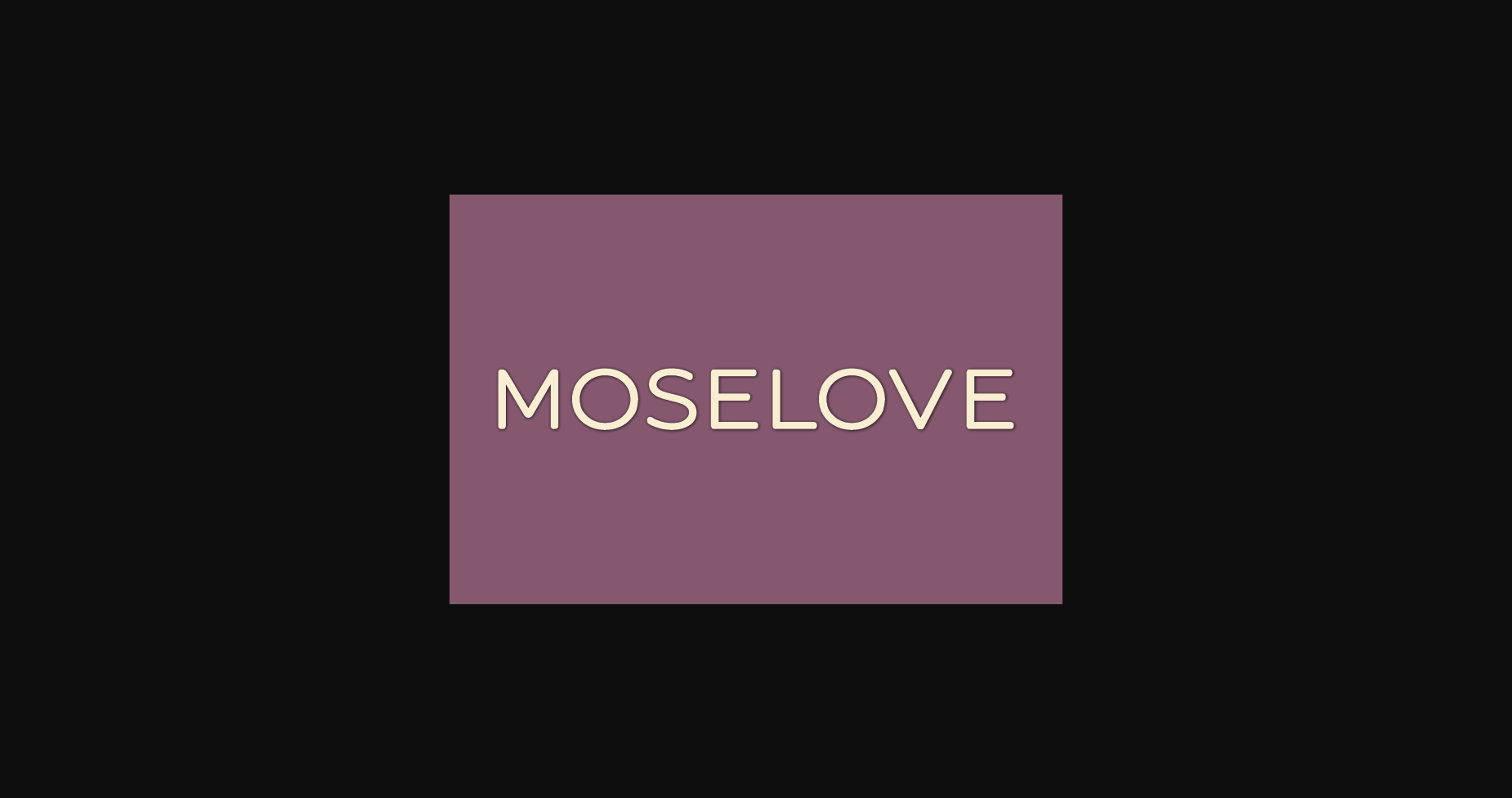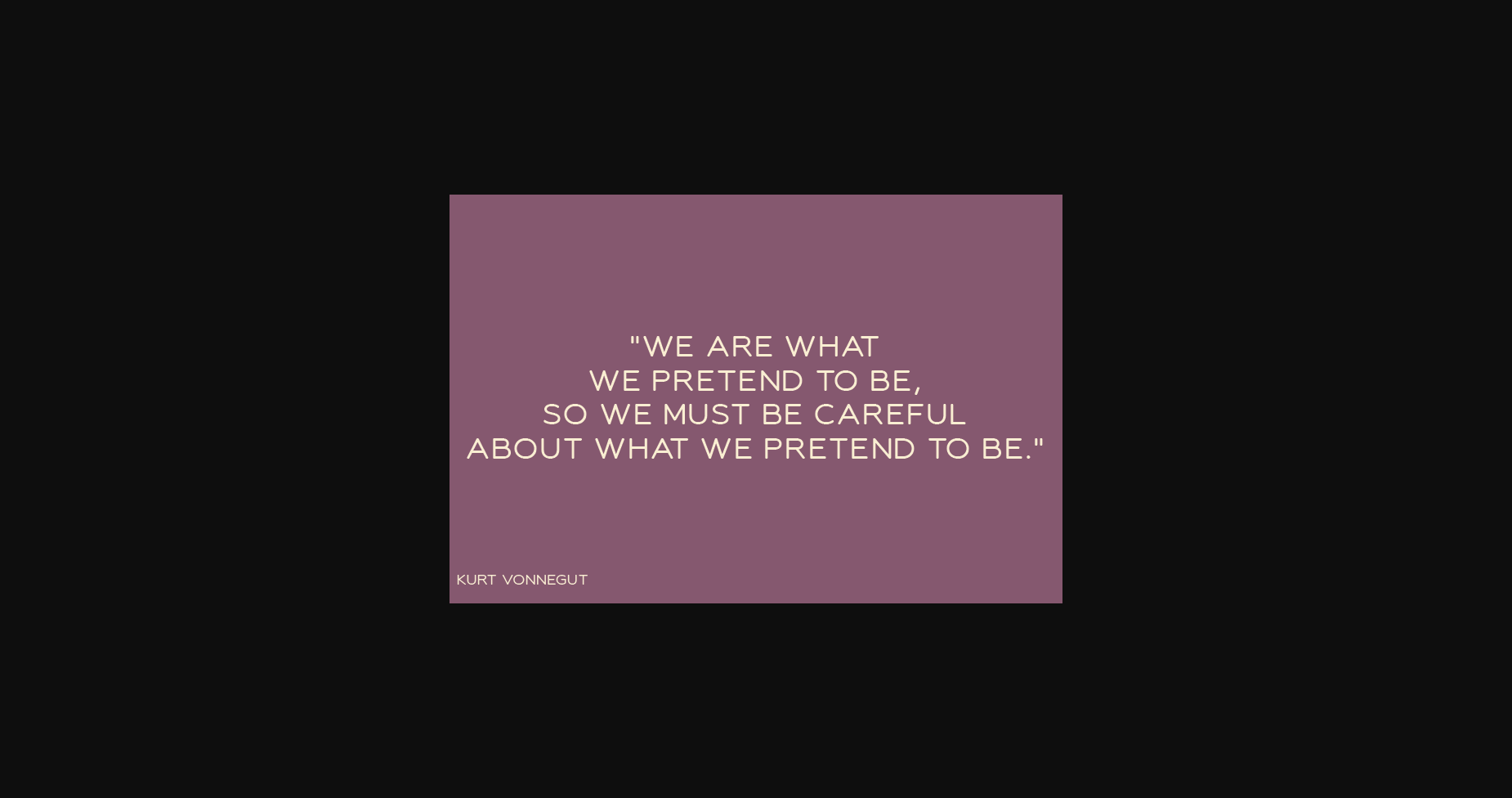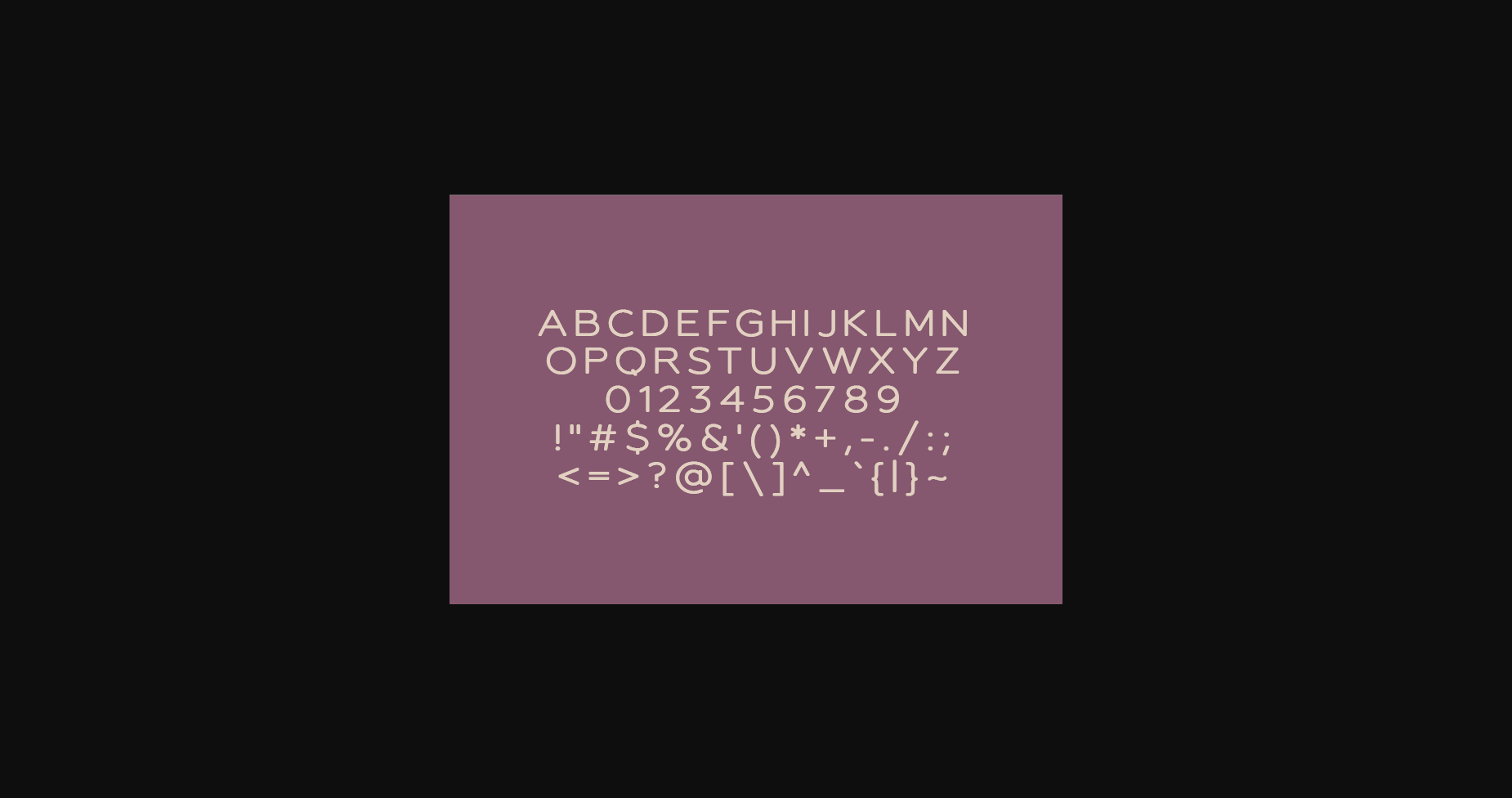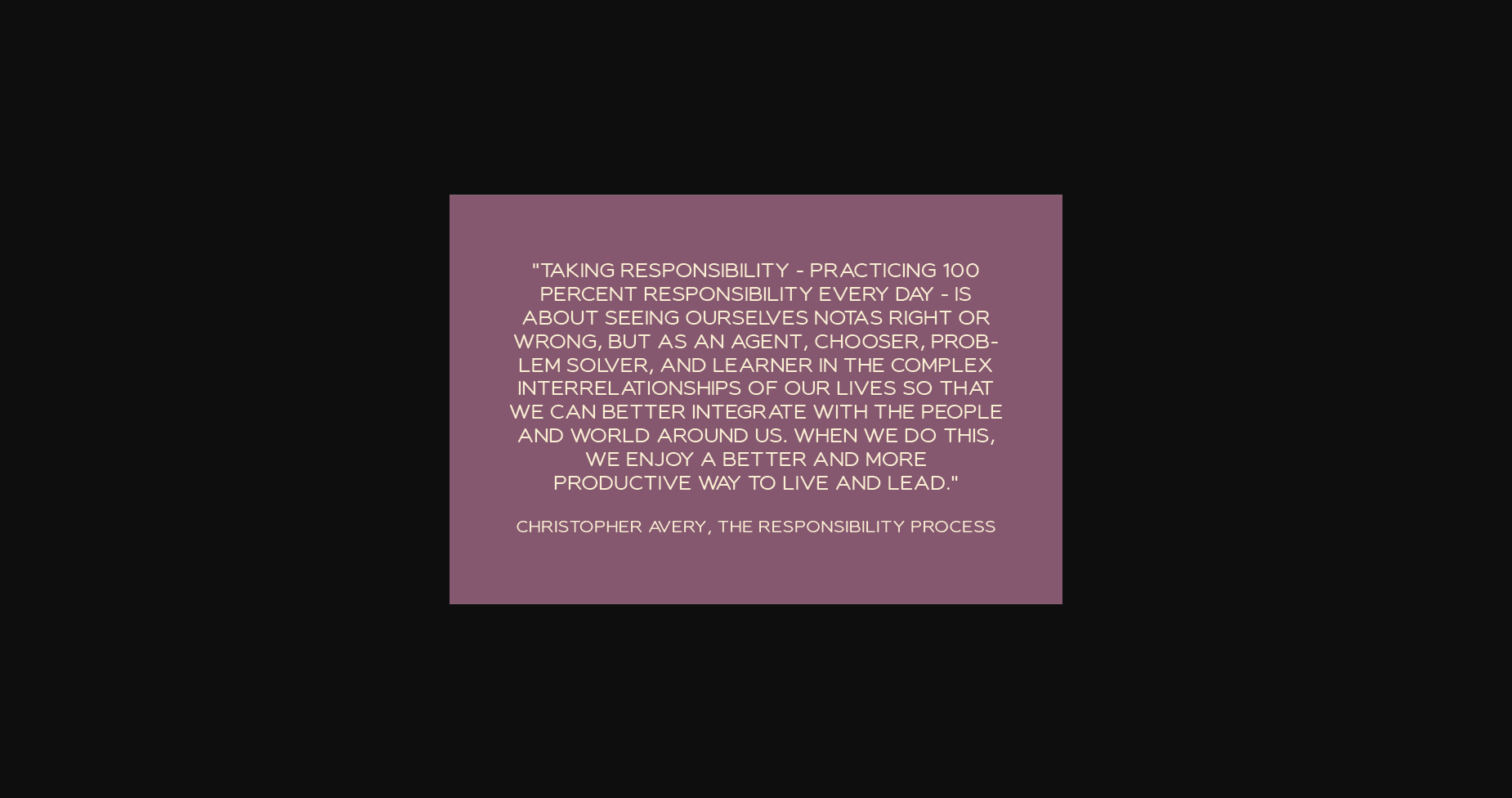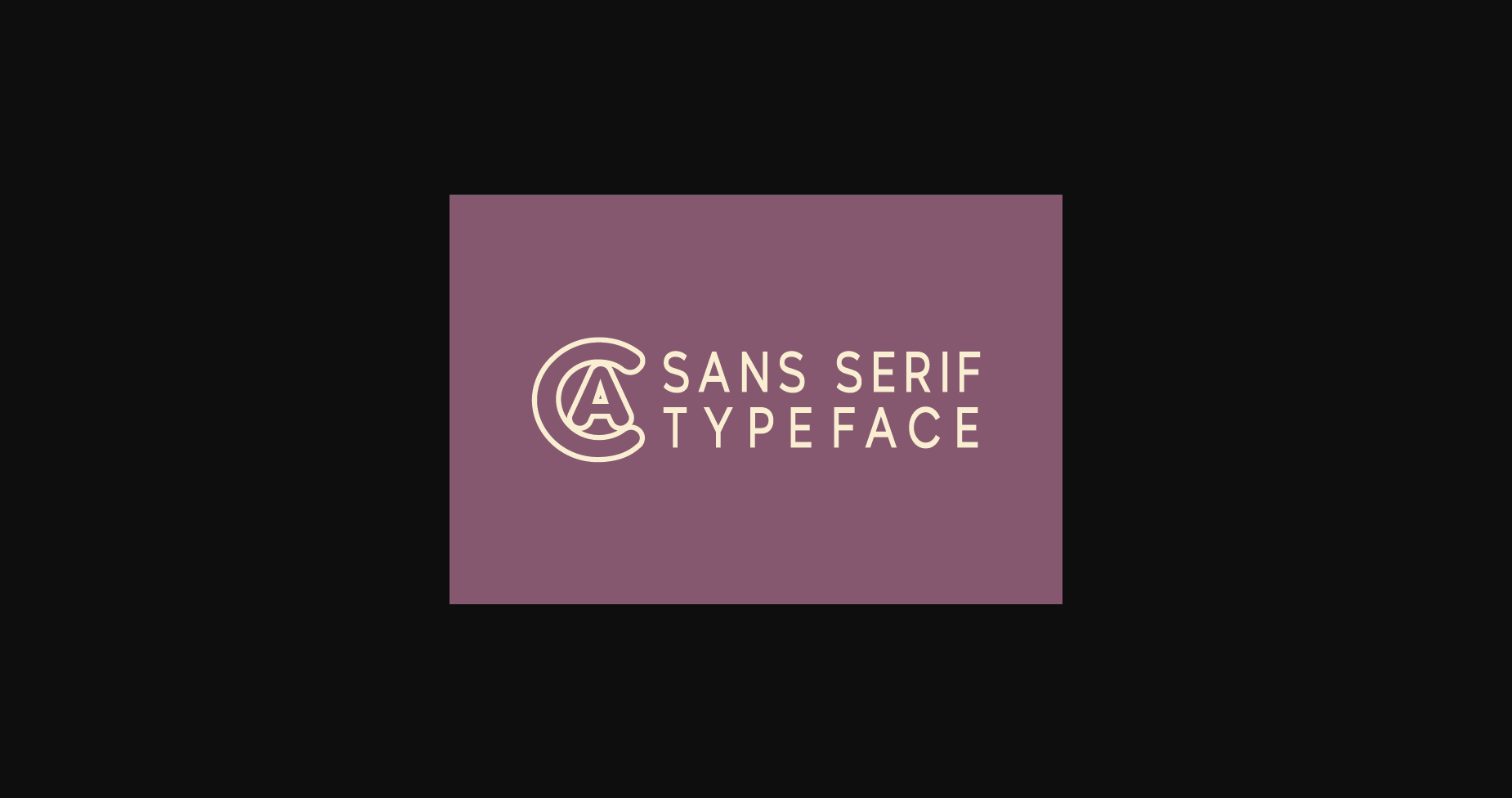
HomeSans Serif FontsMoselove Font Sans Serif Fonts Moselove Font FacebookTwitterPinterestWhatsApp 1 of 7 ... Moselove Font Poster 2... Moselove Font Poster 3... Moselove Font Poster 4... Moselove Font Poster 5... Moselove Font Poster 6... Moselove Font Poster 7... About Moselove Font Moselove is a modern, classy sans serif typeface. Extremely versatile, this typeface is perfect for logos, weddings, invitations, quotes, advertisements, print, magazines, and more! DOWNLOAD NOW 203 0 People also explored Dream Christmas Font Good Looking Font Sweet Simple Font Butter Signature Font Salvation Font Brug Font Soria Day Drinking Font Thinking Font Vomamov Font Yuliantti Signature Font Hanalei Pro TagsMoselove Font Previous articleSelfoodie FontNext articleSunrice Heaven Font LEAVE A REPLY Cancel reply Comment: Please enter your comment! Name:* Please enter your name here Email:* You have entered an incorrect email address! Please enter your email address here Website: Save my name, email, and website in this browser for the next time I comment. Unlock Endless Creativity with the FREE September Clipart Huge Bundle (Valued at $700!) Personal Use Free Fibon Personal Use Free Read more Blessed Font Personal Use Free Read more Osaka Personal Use Free Read more Clumed Personal Use Free Read more BLOG Free Fonts Risk: Why Free Fonts Can Be Dangerous for Designers Free Fonts Risk: Why Free Fonts Can Be Dangerous for Designers Using free fonts is a common practice in web and graphic design. However, the... Transform Your Website: Elevate Your Typography with 7 Best Web Font Generators Using Fonts in Digital Marketing: Tips to Strengthen Your Brand Identity Top 7 Google Fonts Alternatives for Faster and Privacy-Friendly Web Design (2025)